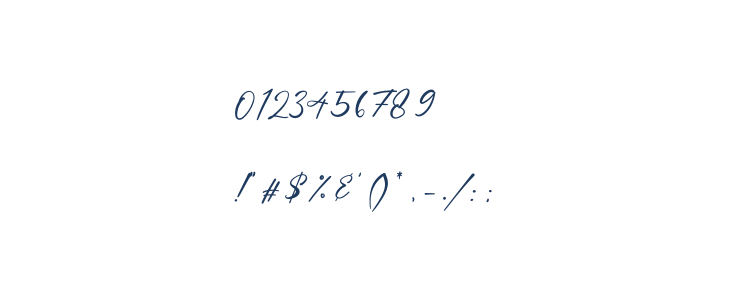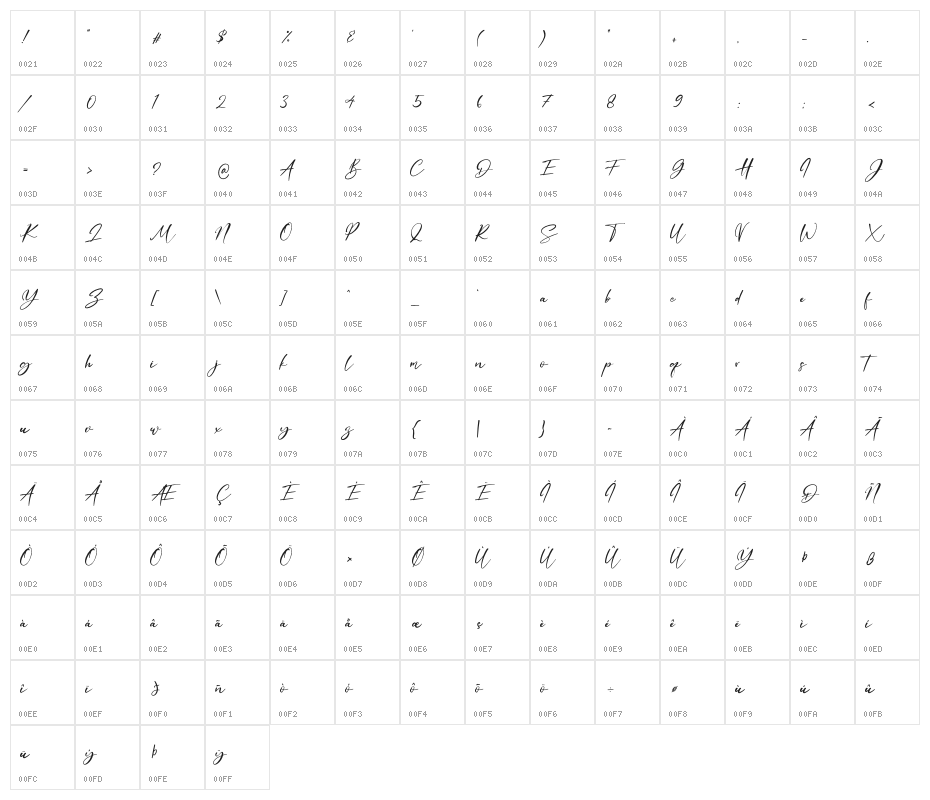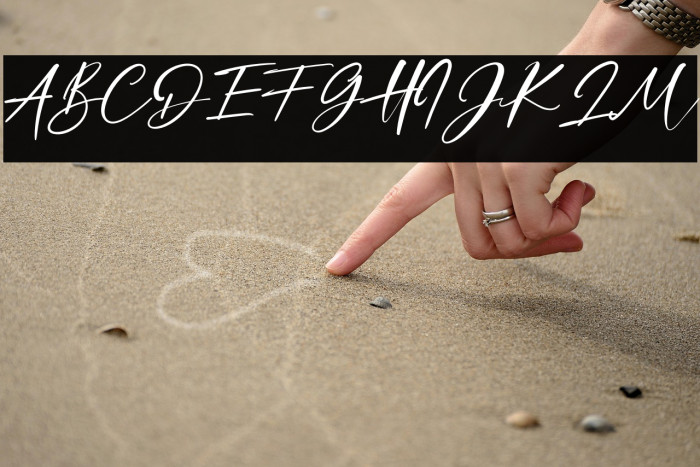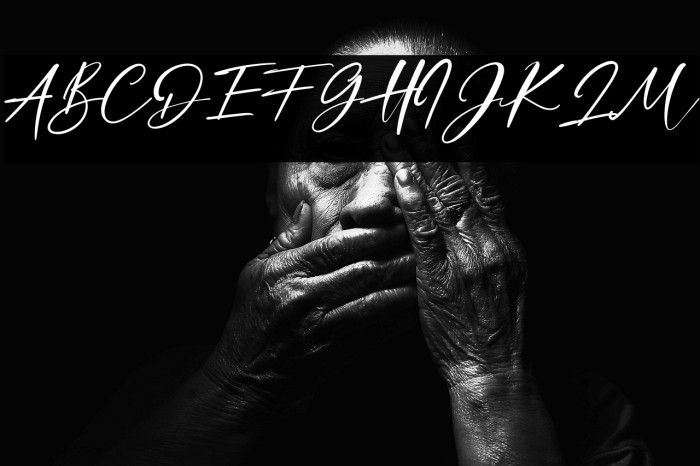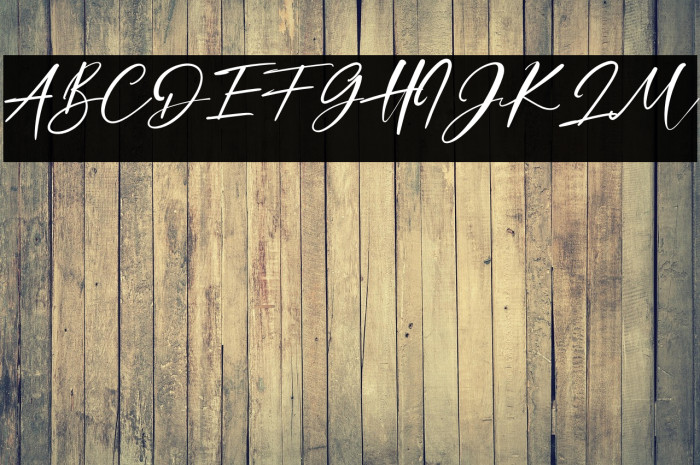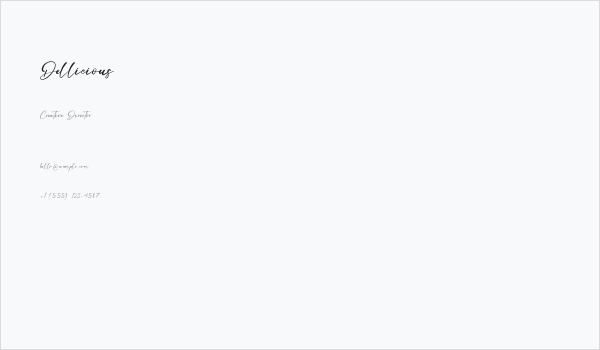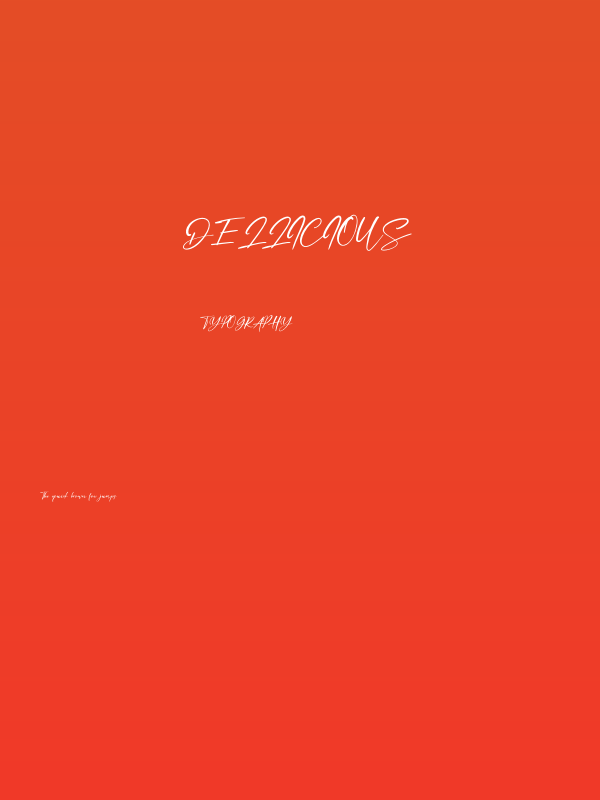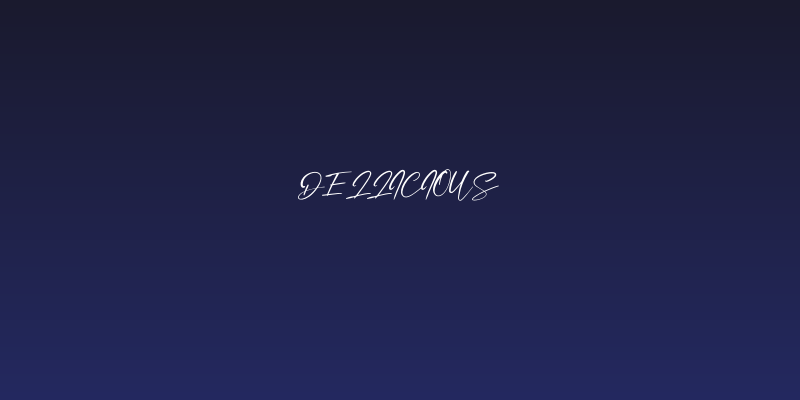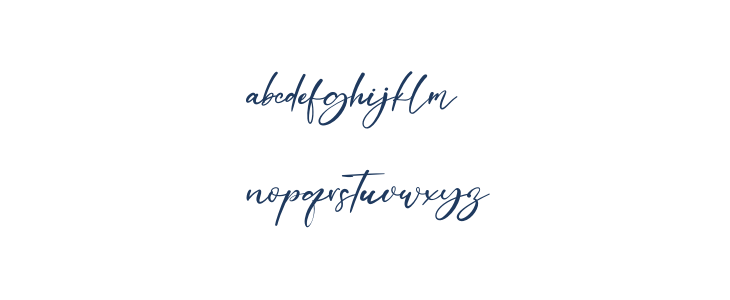
Dellicious Font
Dellicious Description
This font exudes elegance and sophistication with its fluid, cursive style. The characters are gracefully connected, giving a sense of continuity and flow. The uppercase letters are bold and slightly slanted, adding a dynamic touch, while the lowercase letters maintain a delicate and refined appearance. The numbers and special characters are crafted with the same attention to detail, ensuring a cohesive look across all elements. The overall design is reminiscent of handwritten calligraphy, making it ideal for projects that require a personal and artistic touch.